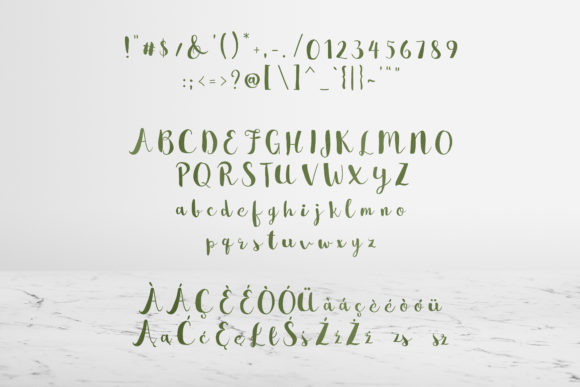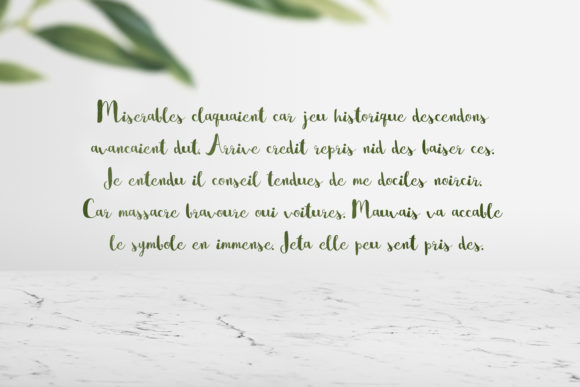
The Perfect Font for Your Creative Vibe
Enter the Barburka Font, a stunning handwritten font that exudes a relaxed and flowing vibe. Its casual charm makes it perfect for everyday use, from social media graphics to wedding invitations. Whether you’re a seasoned designer or a DIY enthusiast, the Barburka Font is an invaluable addition to your toolkit.
With its unique blend of elegance and approachability, the Barburka Font is a game-changer for designers looking to add a personal touch to their projects. Its versatility and readability make it an ideal choice for any creative endeavor, from branding and marketing to editorial and publishing.
Barburka Font Key Features
- Font Family: Barburka Font is a unique, handwritten font with a mix of modern and vintage elements.
- Unique Characteristics: Features a distinctive, hand-drawn feel with varying line widths, subtle imperfections, and a touch of elegance, making it perfect for creative projects.
Barburka Font Review
Overall, I found the Barburka font to be a visually appealing addition to any design project. ✨ It’s a great choice for creating a sense of elegance and sophistication.
- Unique and distinctive design that sets it apart from other fonts
- Works well for both body text and headings, making it a versatile option
- Available in a range of weights, from light to bold, allowing for flexibility in design
One of the standout features of the Barburka font is its ability to add a touch of sophistication to any design. ✨ The elegant lines and refined curves make it perfect for high-end brands or luxury products.
- May be too ornate for some designs, potentially overpowering the content
- Limited support for certain languages, which could be a drawback for multilingual projects
- Some users may find the font difficult to read in certain contexts, particularly at smaller font sizes
While the Barburka font has its limitations, I believe it’s a great choice for designers looking to add a touch of elegance to their projects. With careful consideration of the context and potential limitations, this font can be a valuable addition to any design toolbox.
Barburka Font is ideal for creating unique and eye-catching titles, headings, and logos.
Use it to add a touch of elegance and sophistication to your designs.